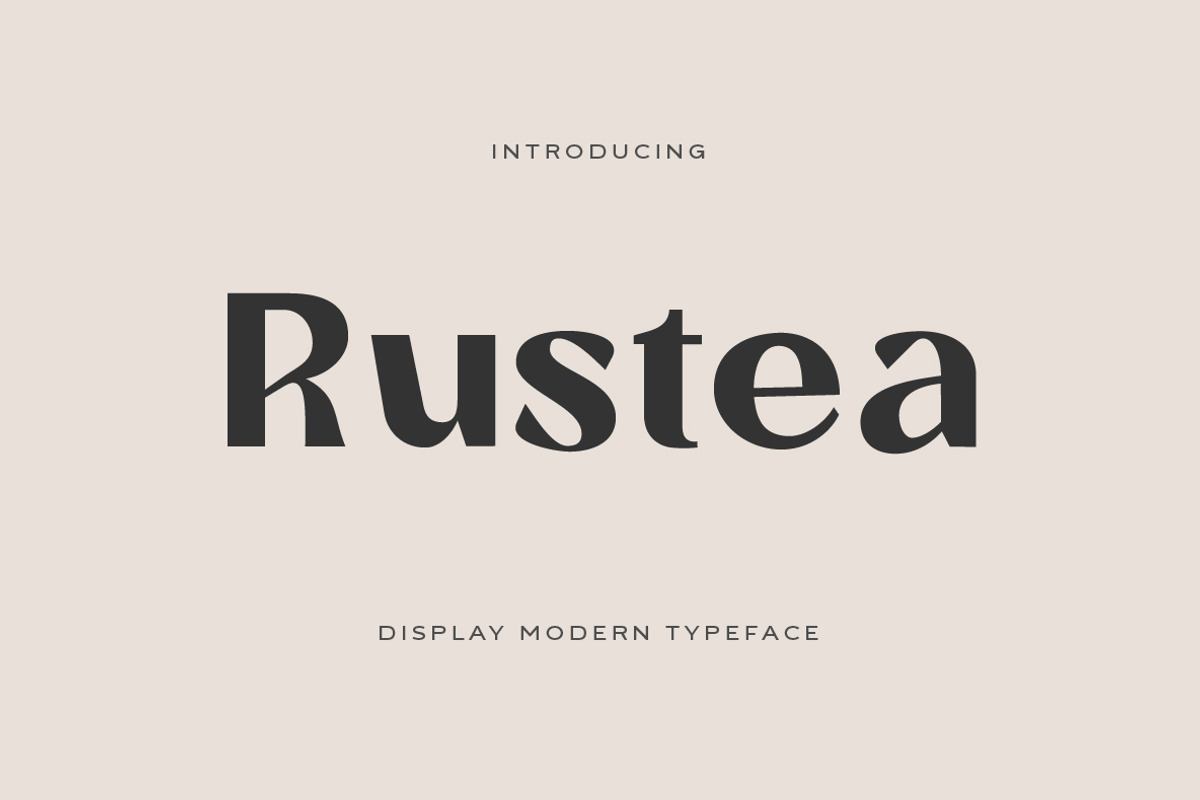
Rustea Display Fonts Free Download is a bold and distinctive typeface designed to make a statement. With its strong, geometric shapes and sharp angles, this font is perfect for creating eye-catching logos, posters, headlines, and branding materials. Its unique design adds a modern, industrial feel to any project, making it ideal for tech, fashion, and creative industries. Whether you’re working on a promotional campaign, designing a modern website, or crafting a striking logo, Rustea Display Fonts Free Download lets you explore its dynamic design in personal projects before purchasing a commercial license. Add strength, style, and character to your designs with this visually impactful display font.